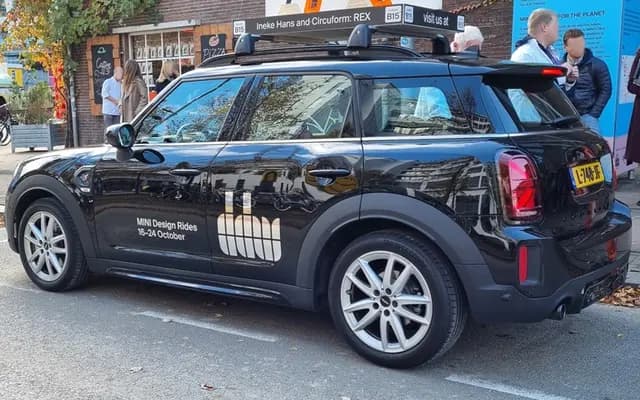
Fernhout
The Foundry Types · Wim Crouwel · 1963
A digital revival of Wim Crouwel's 1963 modular lettering for the Van Abbemuseum's Edgar Fernhout exhibition, expanded into a complete typeface by The Foundry Types.
Originally a single-use poster title designed by Crouwel for a 1963 Van Abbemuseum exhibition, the letterforms were built on a rectangular grid system with circular segments and angled indentations. The Foundry Types completed the alphabet, solving the harder diagonal glyphs without departing from Crouwel's original logic. It won a Type Directors Club Award for Typographic Excellence when used for Dutch Design Week 2021 in collaboration with Thonik.
Constructed from a strict rectangular grid of two-wide by three-high units, with circular segments and angled indentations forming each glyph. The system is entirely modular and geometric, placing it firmly in the display category as a constructed alphabet rather than a text typeface.